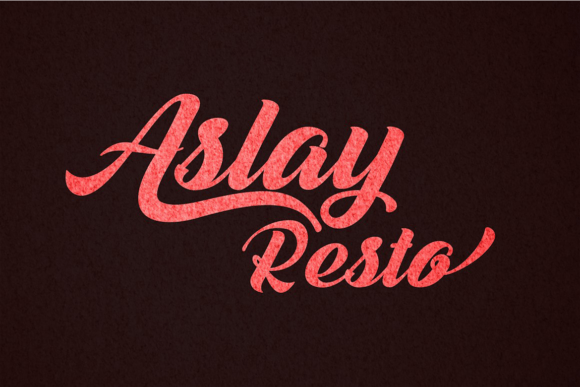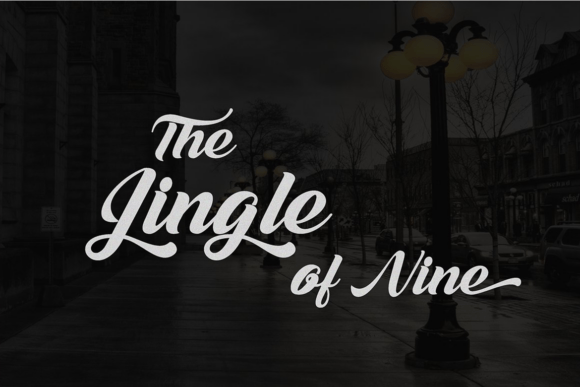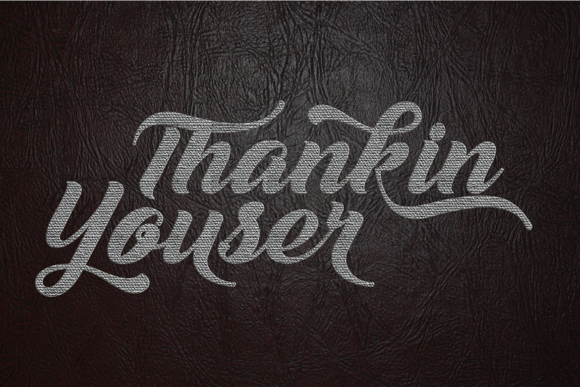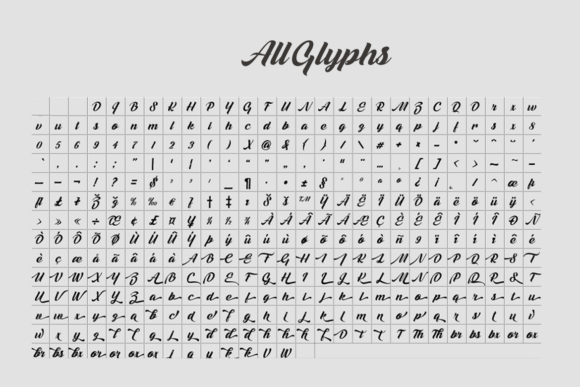
Introduction to Melani Font
Have you ever found yourself pouring your heart and soul into a creative project, only to realize that the right font can make all the difference? For designers, the search for that perfect typeface can be a tedious and time-consuming process. But what if I told you that there’s a font that can elevate your designs, add a touch of personality, and make your work stand out in a crowded market?
Enter the Melani Font, a bold, fluid, and expressive brush-style script that’s perfect for fashion branding, apparel design, and lifestyle photography watermarks. With its high-contrast energy and modern silhouettes, this font is ideal for catchy social media headers and product packaging. Whether you’re working on a free download or a high-quality design resource, the Melani Font is sure to add a touch of sophistication and elegance to your work.
Key Features of Melani Font
- Includes a comprehensive set of glyphs, making it suitable for a wide range of applications.
- Designed with a clean and modern aesthetic, perfect for use in logos, branding materials, and digital products.
Honest Review: Melani Font
I recently stumbled upon the Melani Font, and I’m excited to share my honest review. As a designer, I’m always on the lookout for high-quality design resources that can elevate my creative projects. The Melani Font is a beautiful, elegant script font that’s perfect for adding a touch of sophistication to any design.
- ⚠️ Limited character set, which may not be suitable for complex designs
Overall, I’m impressed with the Melani Font. It’s a great addition to any designer’s toolkit, and the free download is a huge plus. While it may have some limitations, it’s still a high-quality design resource that’s worth checking out.
Tips for Getting the Most Out of Melani Font
For a high-quality design, use Melani Font with a transparent background to create a clean and minimalist look. Experiment with different font sizes and styles to add visual interest to your design.
Melani Font is perfect for creative projects such as wedding invitations, social media graphics, and blog posts. Its high-quality design and transparent background make it an ideal choice for designers who want to create visually appealing and professional-looking designs.
Alternatives to Melani Font
Great Vibes Font is a modern, elegant script font ideal for design projects that require a touch of sophistication. It’s a great resource for designers looking to create high-quality, visually appealing content. Great Vibes Font features a transparent background, making it easy to use on any design resource.
Use Great Vibes Font for creative projects such as wedding invitations, logos, or any design that needs a stylish, handwritten feel. It compares to Melani Font in terms of elegance, but has a more modern and playful twist.
Alex Brush Font is a beautiful, handwritten script font that’s perfect for designers who want to add a personal touch to their creative project. This high-quality font features a transparent background and is suitable for various design resources, including business cards, menus, and signage.
Use Alex Brush Font for projects that require a unique, hand-drawn feel. It compares to Melani Font in terms of its elegant and sophisticated look, but has a more whimsical and artistic feel.